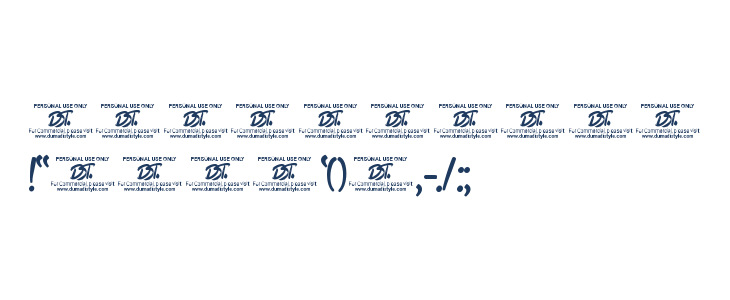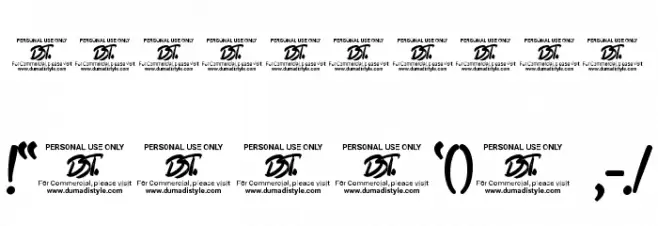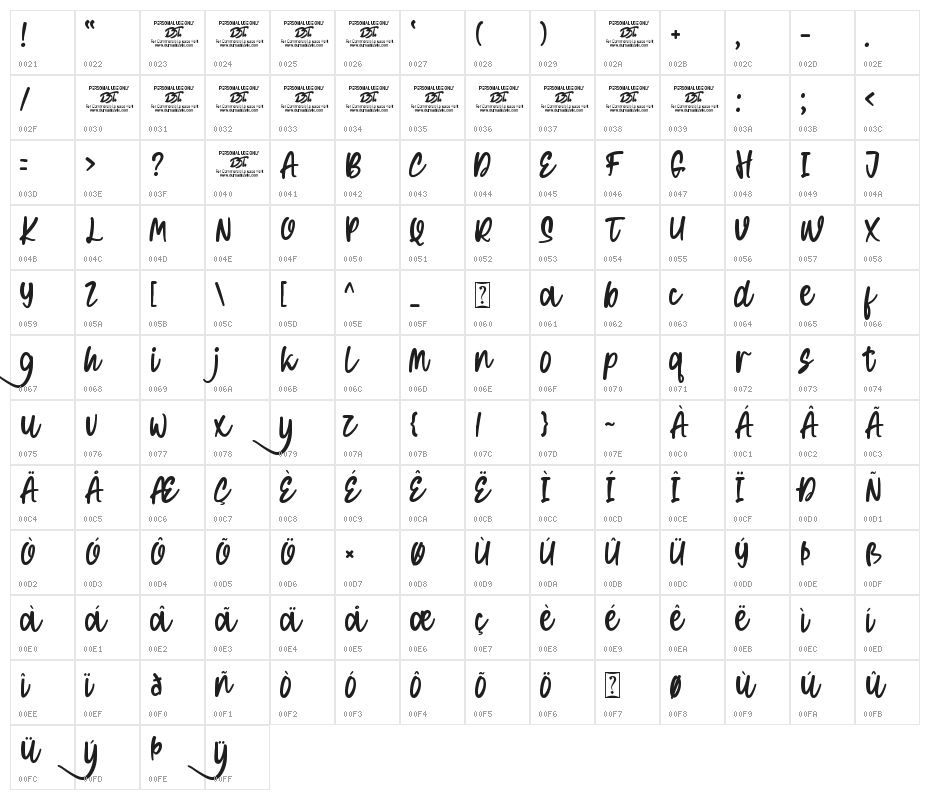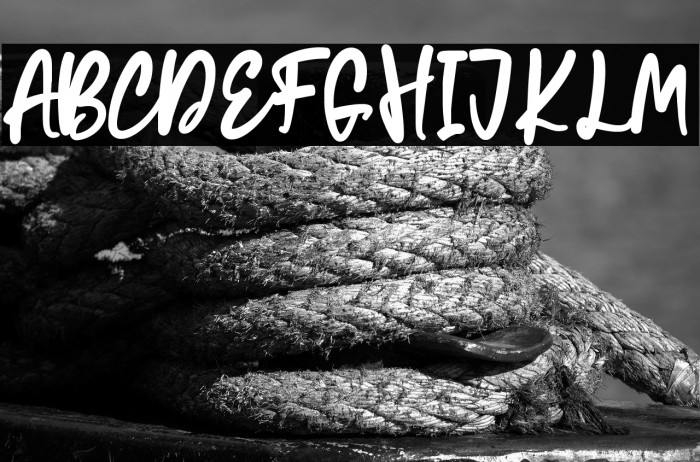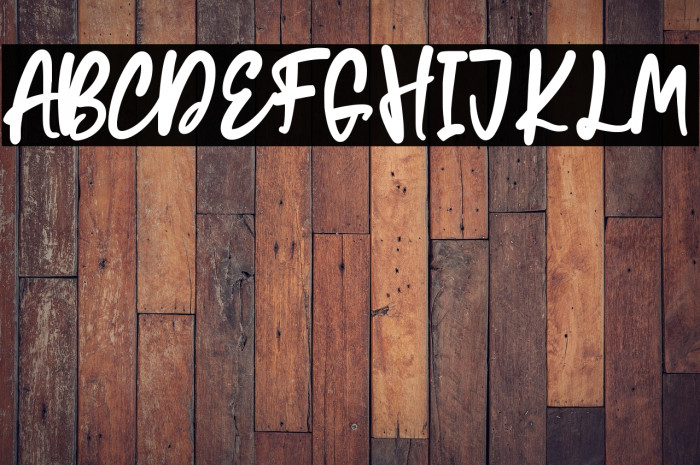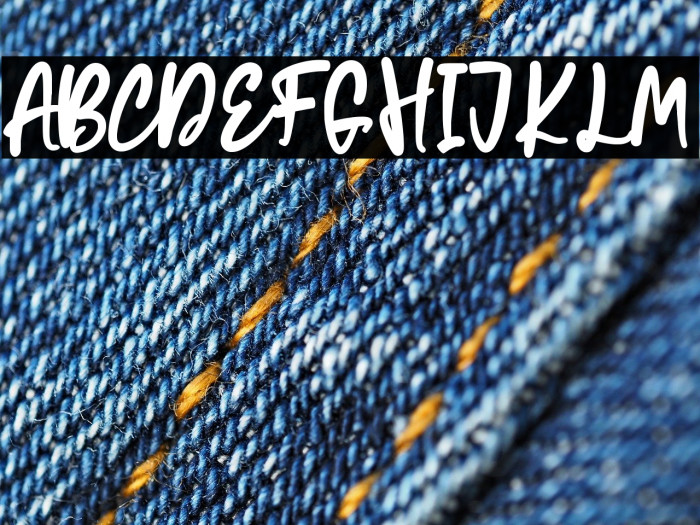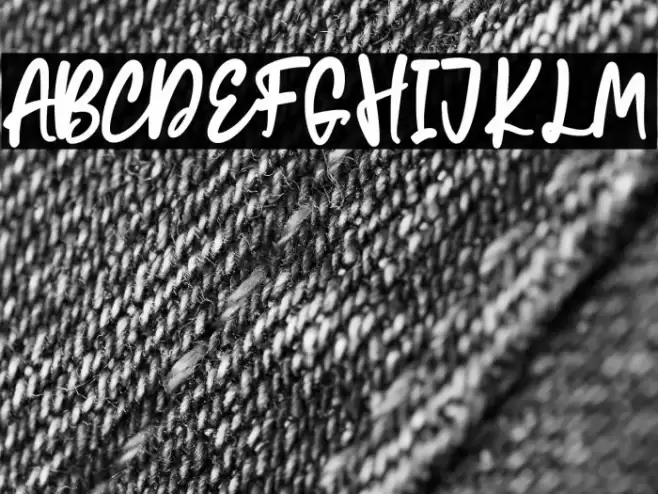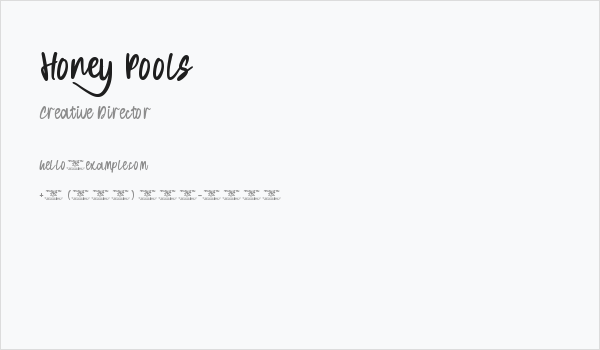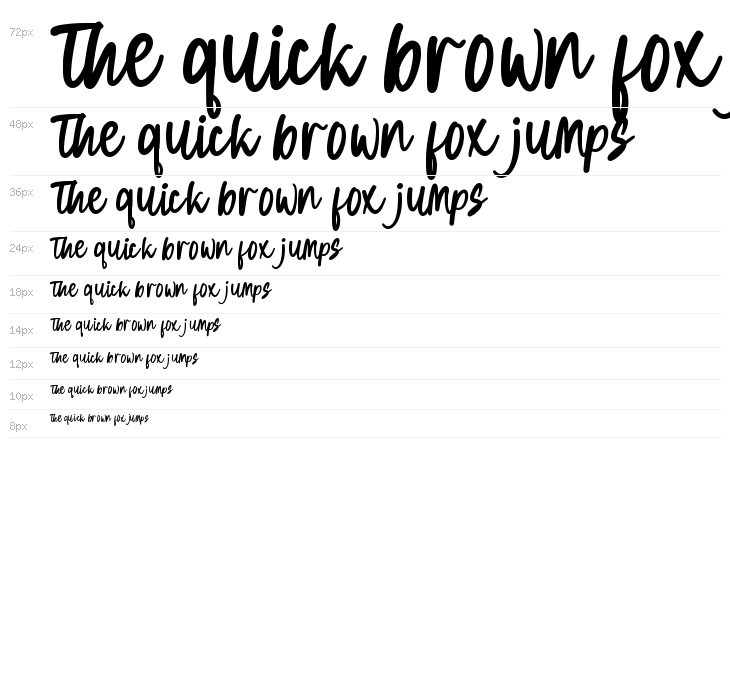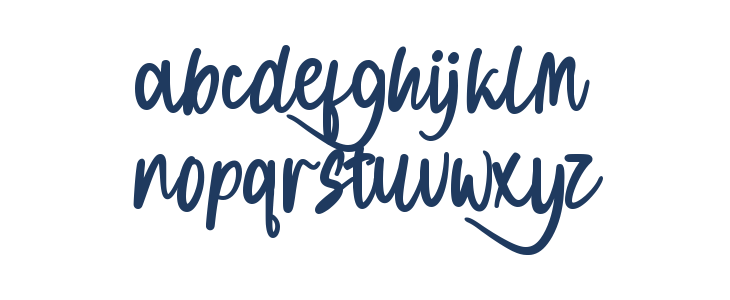
Honey Pools Font
Honey Pools Description
This font features a bold and expressive handwritten style, characterized by its fluid and dynamic strokes. The letters are connected in a cursive manner, giving it a natural and personal touch. The uppercase letters are slightly larger and more prominent, while the lowercase letters maintain a consistent flow. The font includes a full set of uppercase and lowercase letters, numbers, and a selection of special characters. Its playful and energetic appearance makes it suitable for creative and informal projects.
| Proposed Projects | Ideal for greeting cards, invitations, personal branding, and creative posters. |